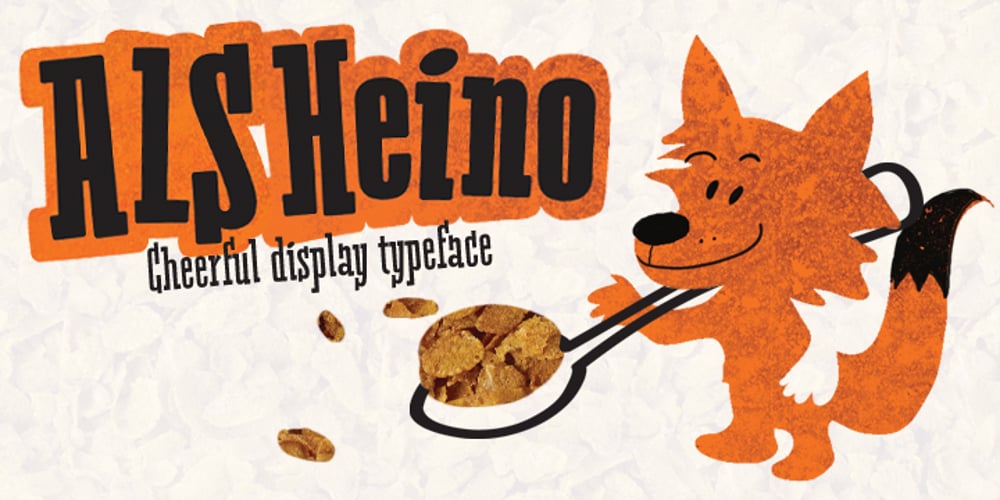
ALS Heino Font Family was designed by Elena Novoselova and published by Art. Lebedev Studio. ALS Heino contains 2 styles and family package options. Heino is a decorative face with two font styles that was inspired by an old magazine lettering. Its original features include heavy serifs and tight spacing, particularly if you take the Black version. The bouncing letters create a cheerful impression, and would look nice in children’s books and magazines, on candy and food packages, holiday and circus posters and flyers.